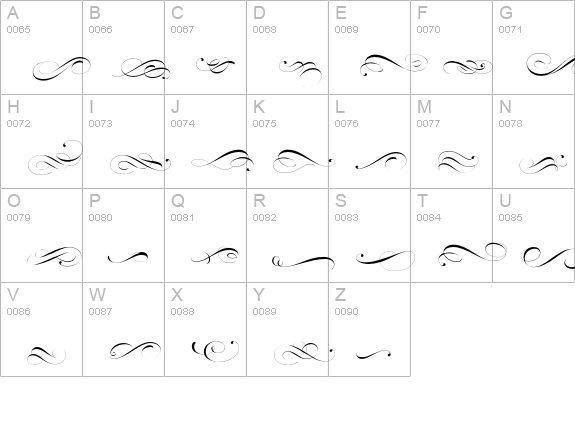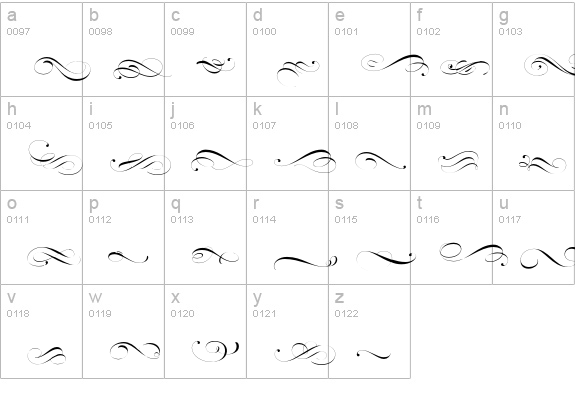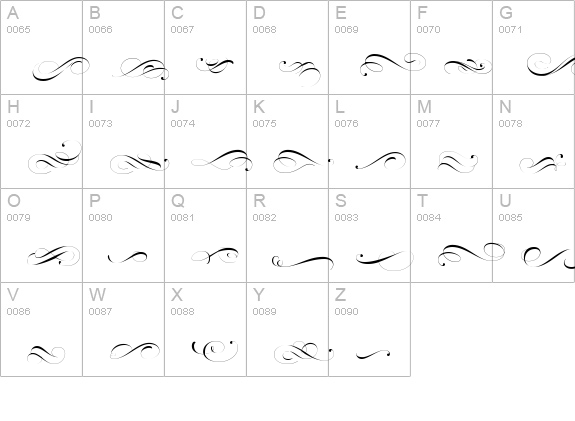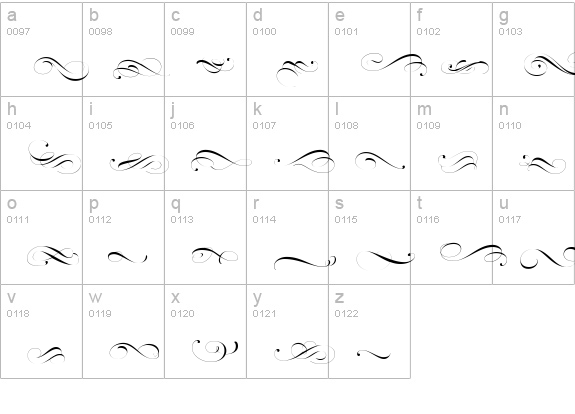
Parfait Script Ornaments Font Details
Parfait Script Ornaments font is a stunning and elegant typeface that adds a touch of sophistication to any design project. With delicate swirls and intricate details, this font is perfect for creating beautiful invitations, greeting cards, and more. The ornamental elements of Parfait Script Ornaments font exude a sense of luxury and refinement, making it a versatile choice for both formal and whimsical designs. What makes Parfait Script Ornaments font even more appealing is that it is available for free download at FontsMarket.com. This means that you can easily access this exquisite font and enhance your creative projects without any cost. Whether you're a graphic designer, a calligrapher, or simply someone who appreciates beautiful typography, Parfait Script Ornaments font is sure to impress with its timeless charm and intricate details. Download it today and elevate your designs with this exquisite typeface.